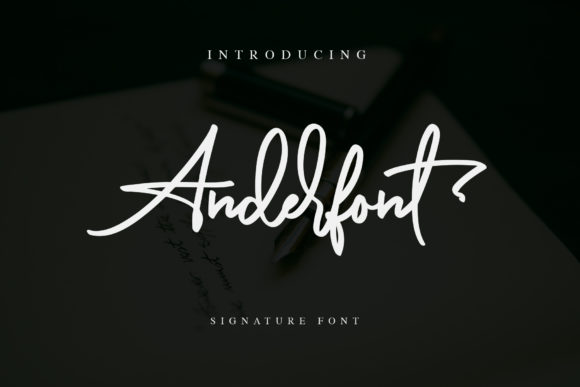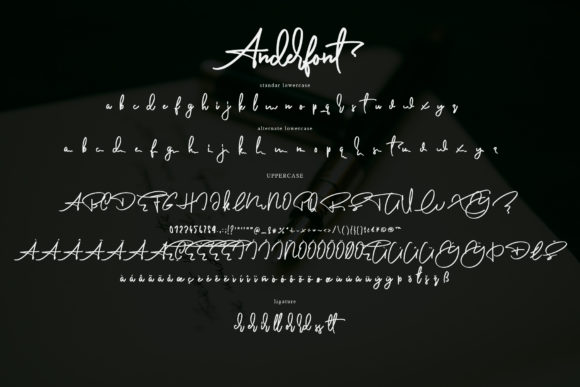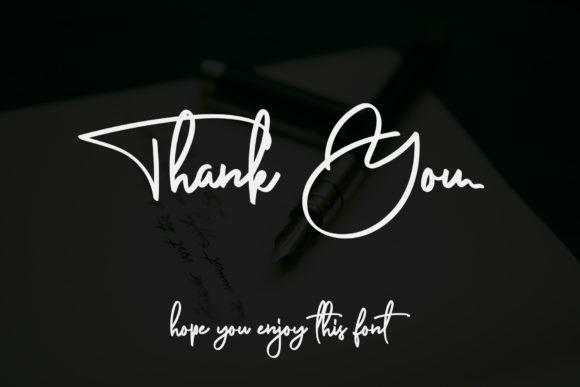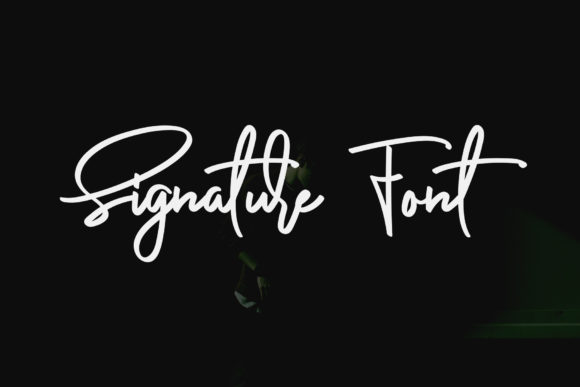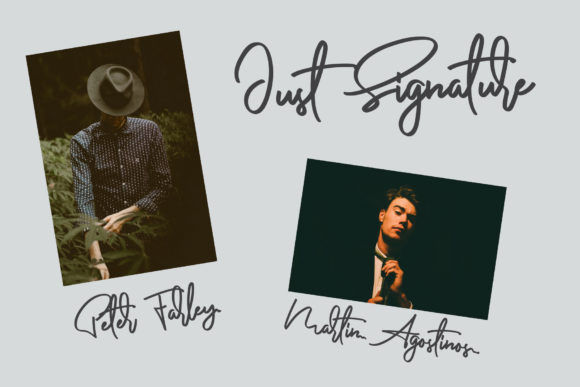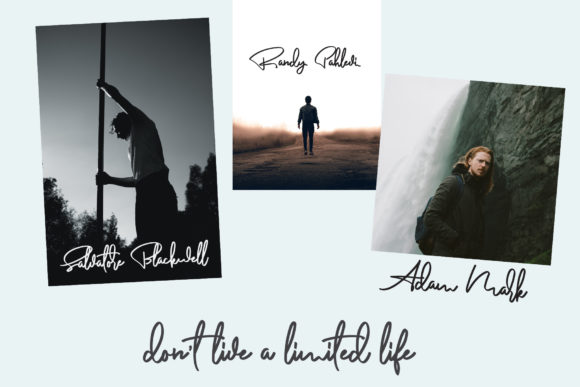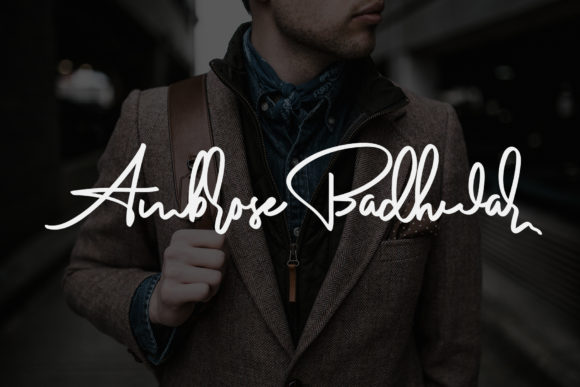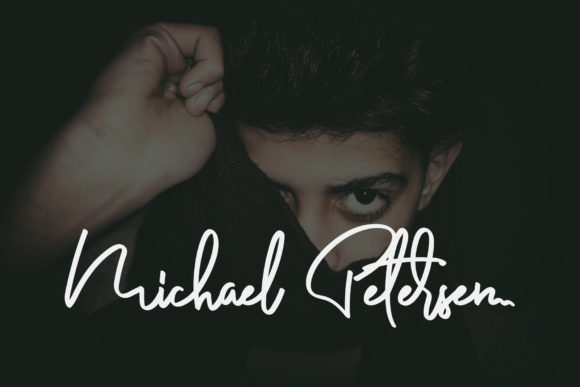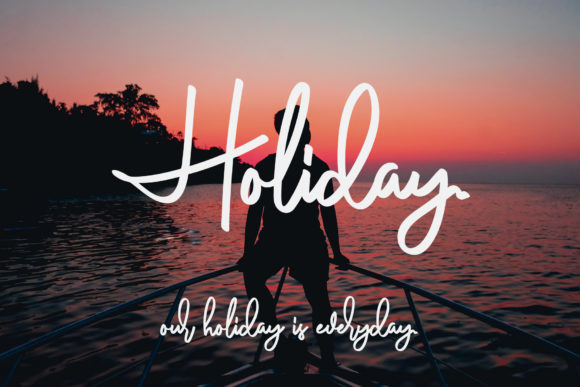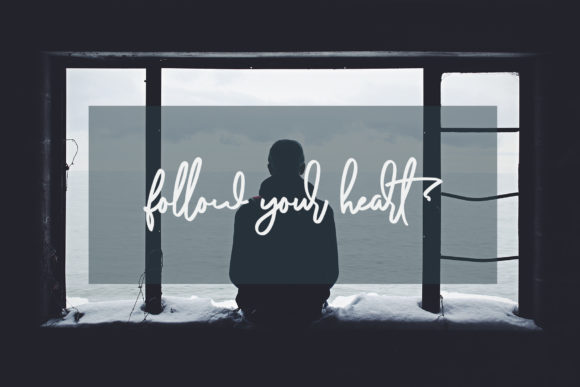
Ander Font
About Ander Font
The Anderfont is an amazing handwritten signature font. It has a simple, yet classy style and will add a natural feel to your designs.
It’s great for your next creative projects, such as watermarks on photography, signatures, logos, quotes, album covers, business cards, and much more!